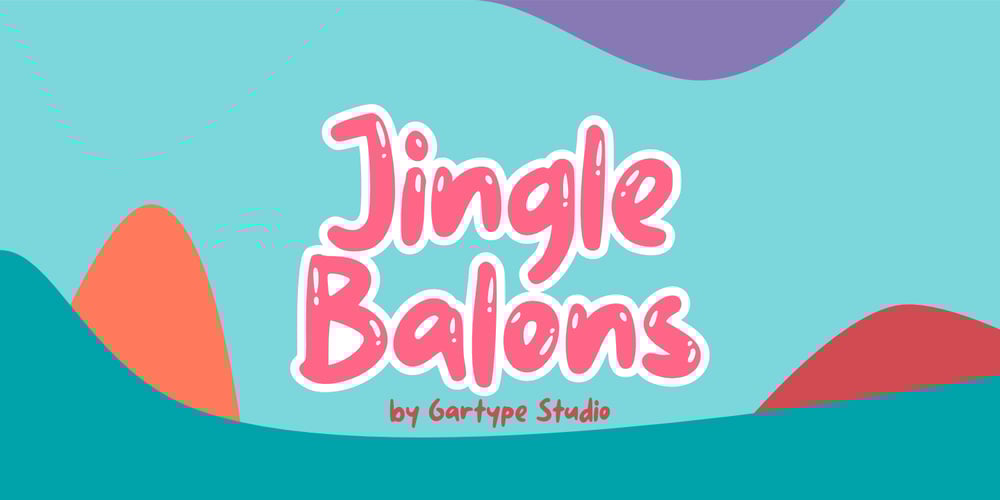
Jingle Balons GT Font Family was designed by Gumilang Anggara Ruslan and published by Gartype Studio. Jingle Balons GT contains 3 styles and family package options. Inspired by a cute, gum, and balloons character, we present to you Jingle Balons, a handwritten font with bold and cute characters that was comes with alternates and multilingual glyphs to help people around world with that unique accent.Jingle Balons is very suitable for T-Shirt Designs, Birthday invitation, Product packaging, YouTube Thumbnail, Posters, Advertising Projects, Logos and more.